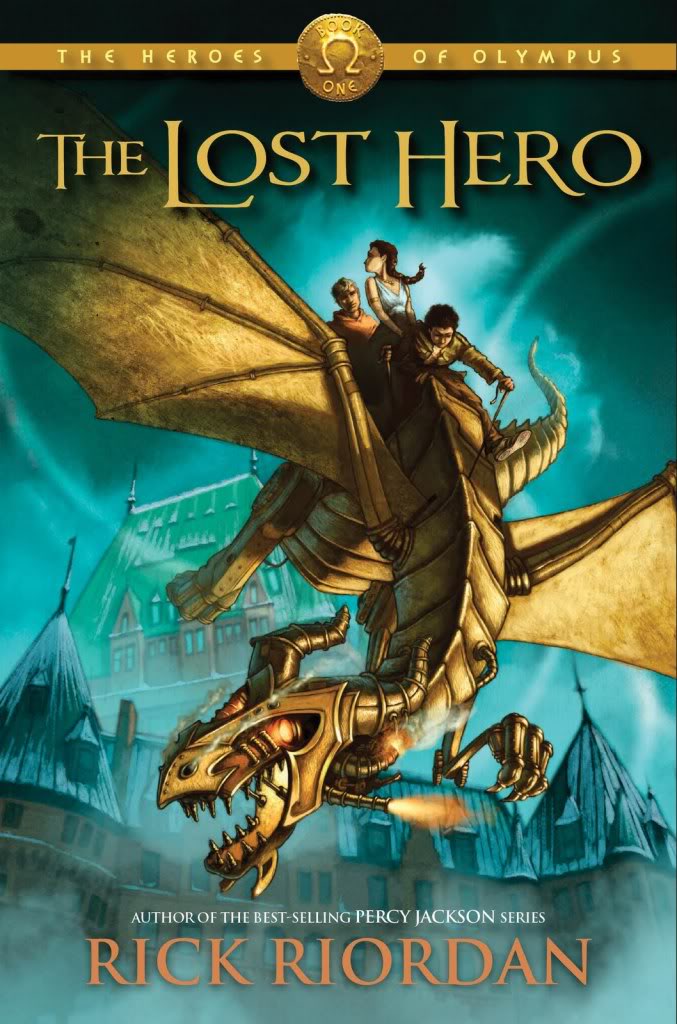
The Heroes of Olympus Font
AdventureThe Heroes of Olympus is a series of mythological fantasy novels written by American author Rick Riordan. It follows the adventures of a group of young demigods as they battle against ancient Greek and Roman gods and monsters. The Heroes of Olympus consists of five novels: "The Lost Hero," "The Son of Neptune," "The Mark of Athena," "The House of Hades," and "The Blood of Olympus."
Vectis, a serif font, is used for the book's title on the cover. Vectis, a small caps serif typeface created by Paul James Lloyd, pays tribute to the Roman town that once stood on the Isle of Wight in Britain and offers a new take on the timeless simplicity and grace of classical Roman faces. Among the closest fonts, we can find to "The Heroes of Olympus" are: Grapefruit by Györi Attila, and Lithos from Adobe.